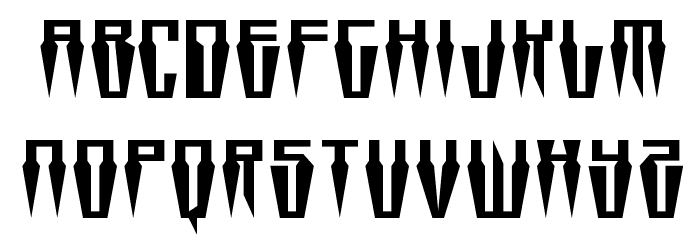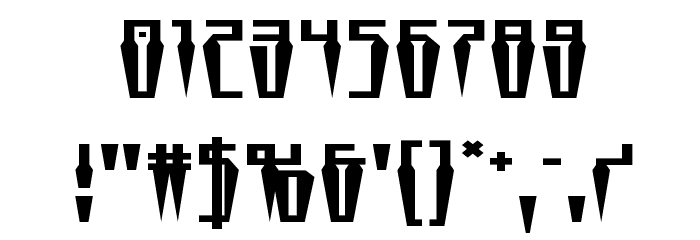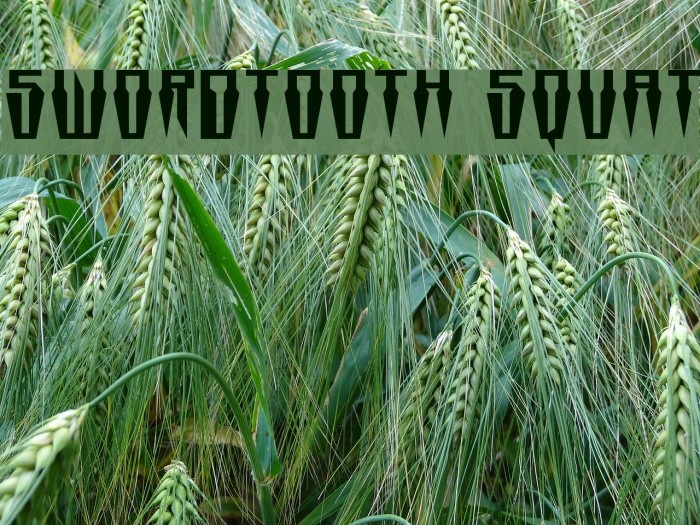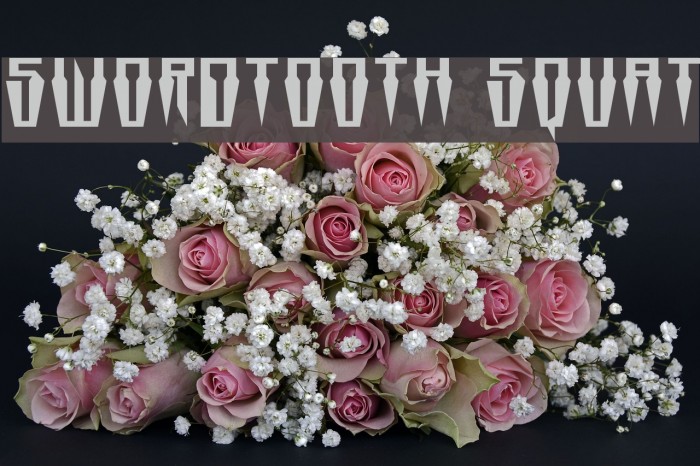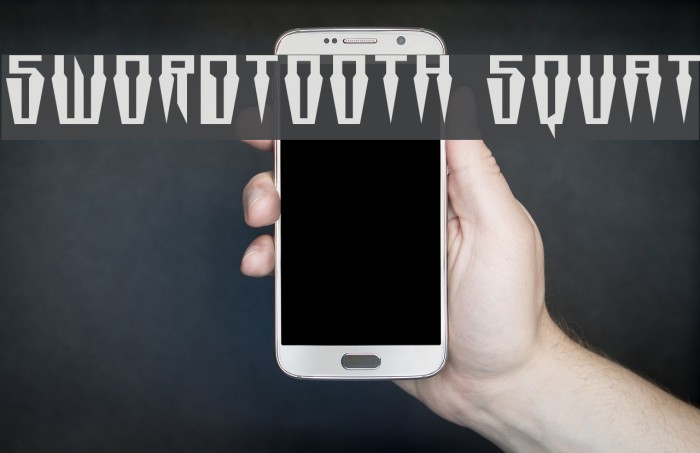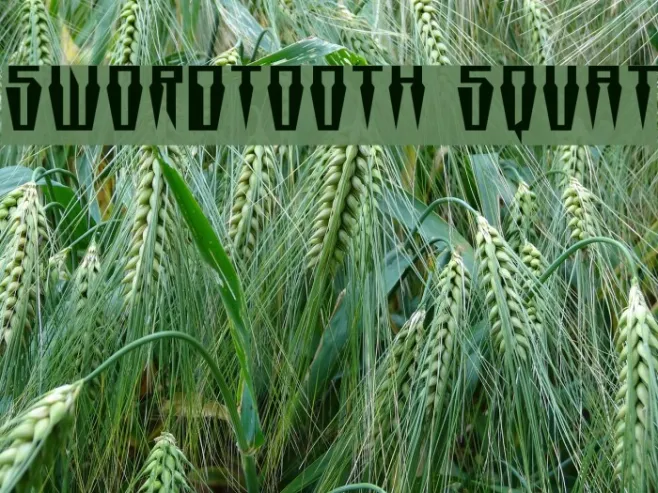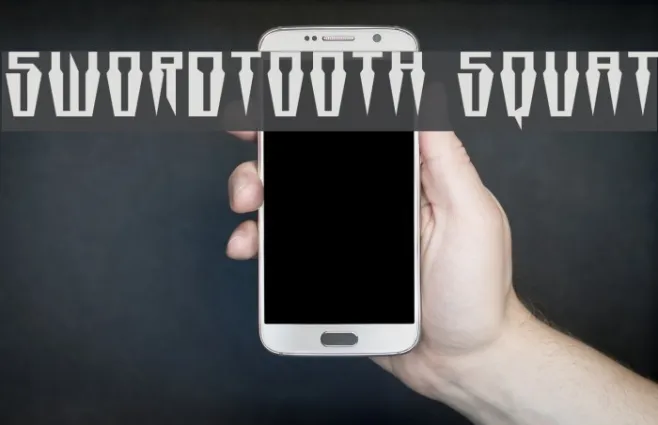
Swordtooth Squat Font
This font features a bold and aggressive design with sharp, angular edges reminiscent of blades or teeth. The characters are highly stylized, with a geometric structure that gives them a modern and edgy appearance. The uppercase and lowercase letters maintain a consistent style, emphasizing vertical lines and pointed serifs that create a sense of movement and intensity. The numerals and special characters follow the same design principles, ensuring uniformity across the entire typeface. This font is ideal for projects that require a strong visual impact and a sense of dynamism.
A bold, angular font with sharp, blade-like edges for a modern, edgy look.
- Proposed Projects: Ideal for video game titles, movie posters, branding for extreme sports, or any project needing a bold, dynamic typeface.
- Overall Style: Modern, Edgy